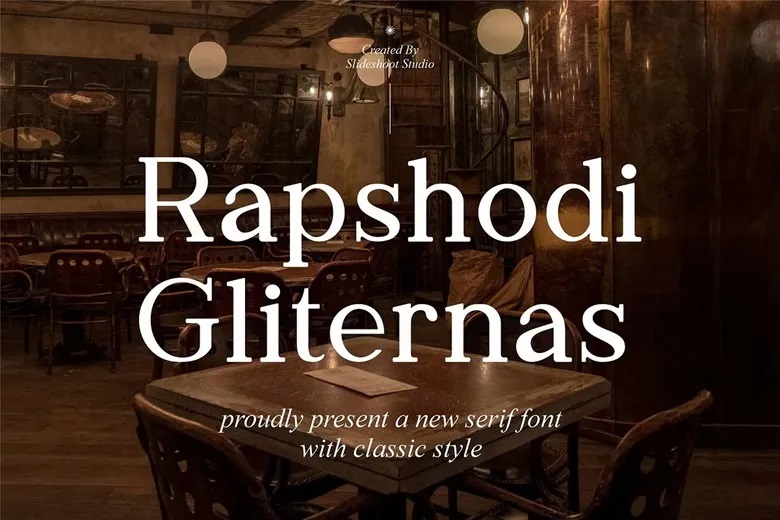
Raphsodi Gliternas Font
Raphsodi Gliternas is a serif font with classic style, trendy, bouncy and cute, font display. They are peculiar by the presence of wooden elements in the interior. It is ideal to be used with invitation card designs, company logos, movie title, movie name, club name, business card, book title, brand name and other designs.
Raphsodi Gliternas Serif Font